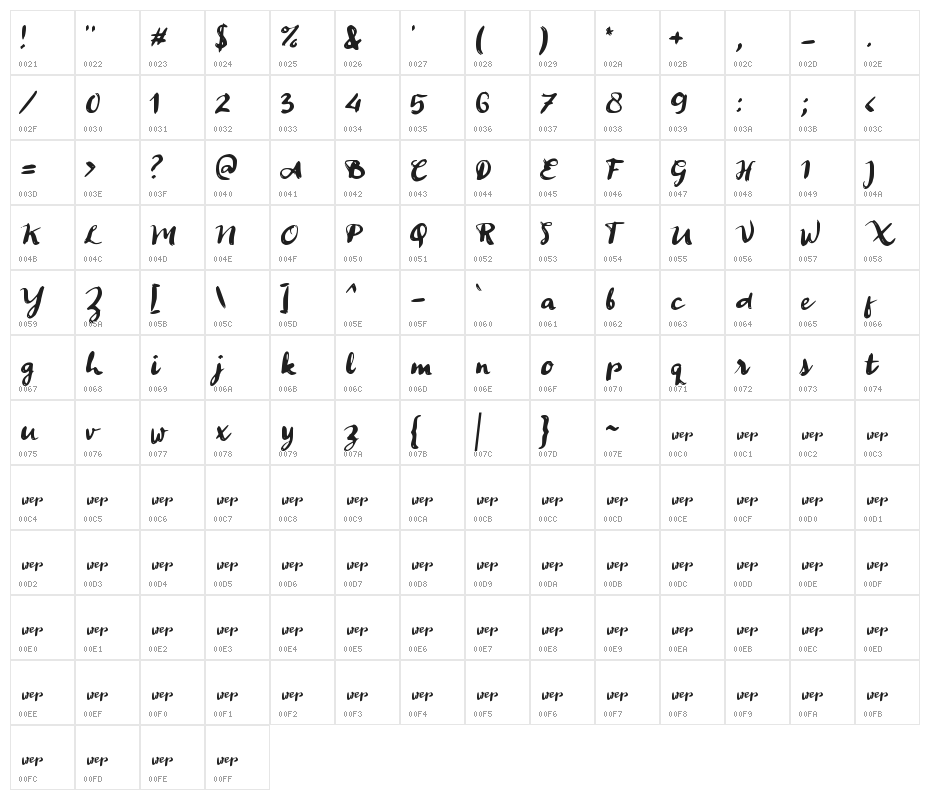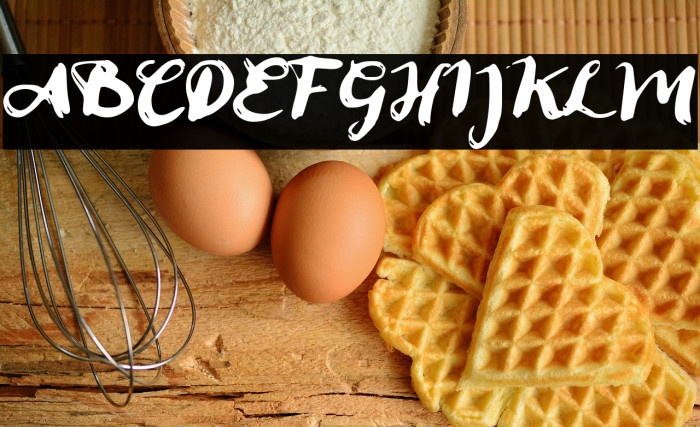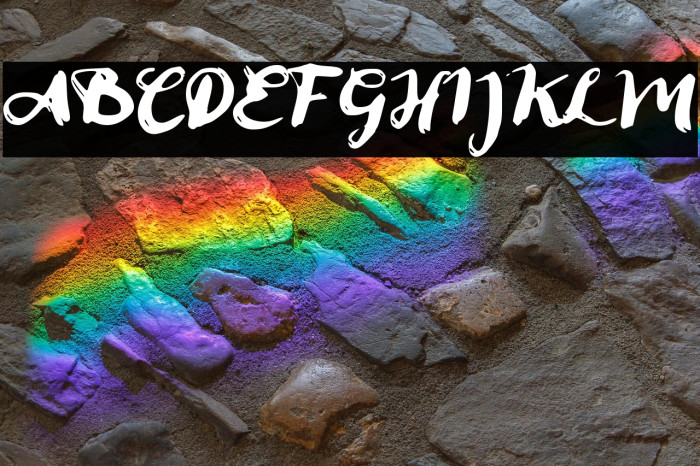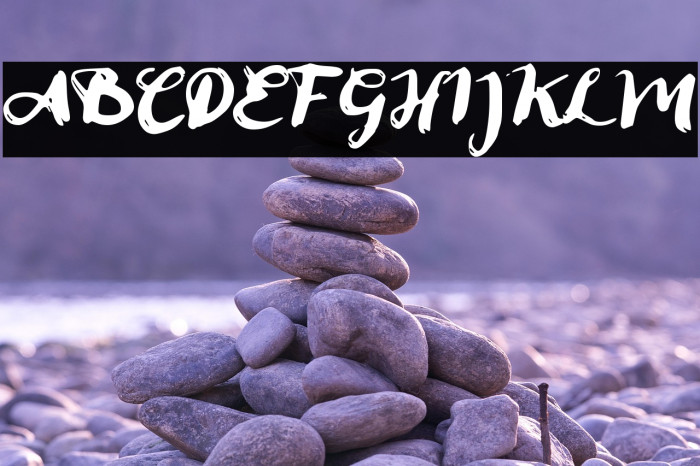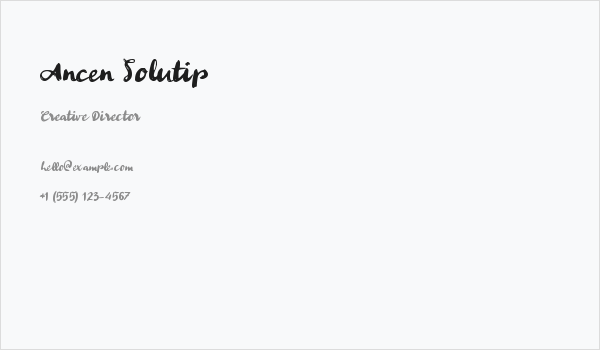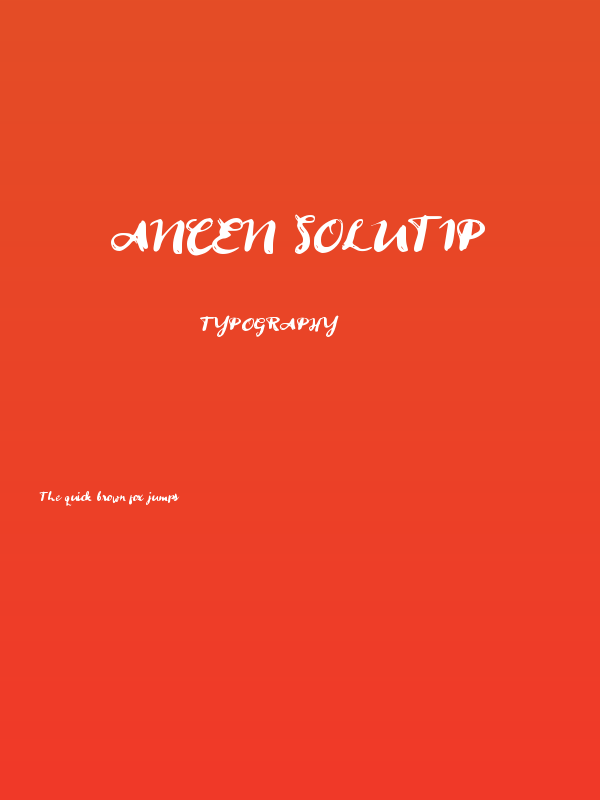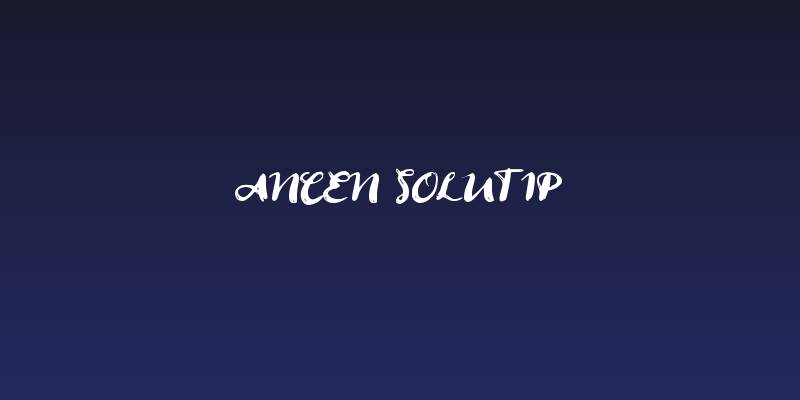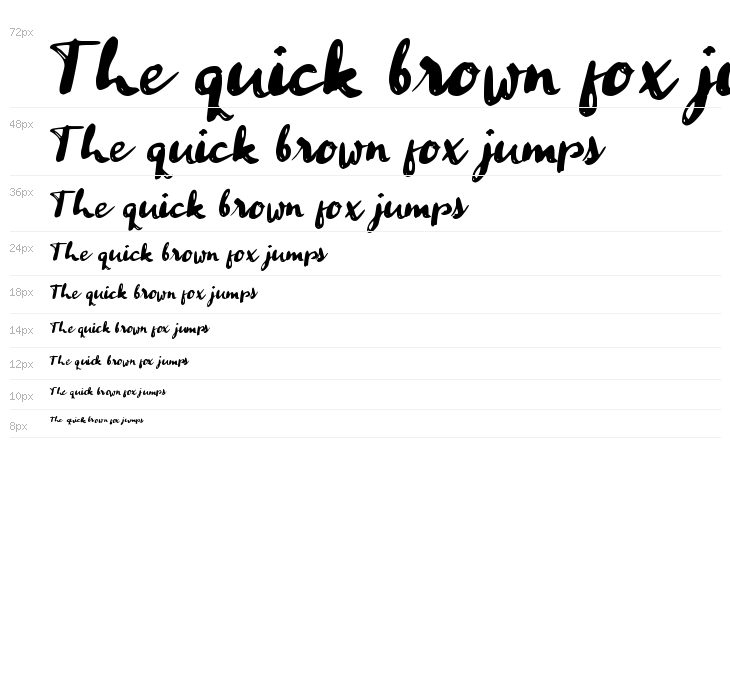
Ancen Solutip Font
Ancen Solutip Description
This font features a bold and expressive handwritten style, characterized by its fluid and dynamic strokes. The letters exhibit a playful yet elegant appearance, with varying thickness that adds a sense of movement and energy. The uppercase letters are particularly striking, with dramatic flourishes and a sense of individuality in each character. The lowercase letters maintain a consistent flow, complementing the uppercase with their rounded and slightly slanted forms. Numbers and special characters are equally expressive, maintaining the overall aesthetic of the font. This font's unique style makes it suitable for creative and artistic projects.
| Proposed Projects | Ideal for branding, invitations, greeting cards, and artistic projects that require a personal touch. |